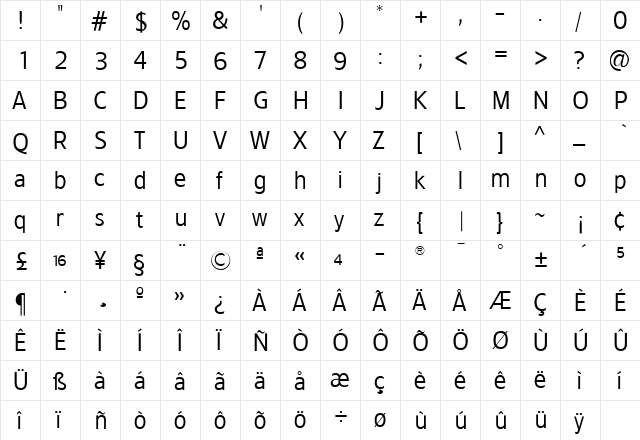
TFForeverTwo Regular
| Foundry | J. Treacy, Treacyfaces,Inc |
| Year | 1988 |
Design Context for TFForeverTwo Typeface
TFForeverTwo offers clean, dependable letterforms without strong stylistic allegiance, making it a practical choice for designers who need flexibility.